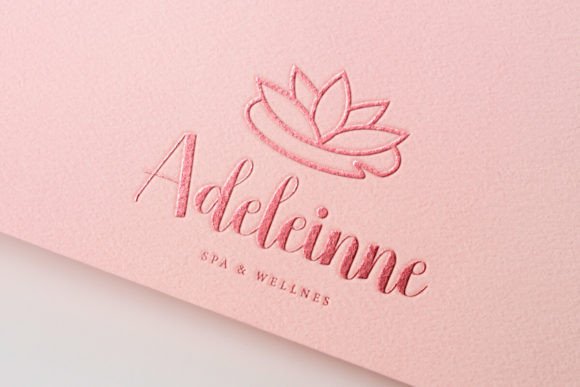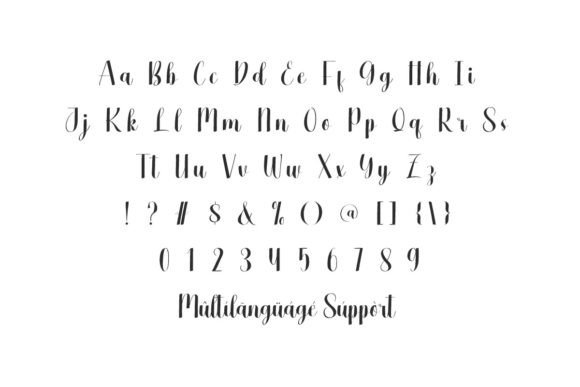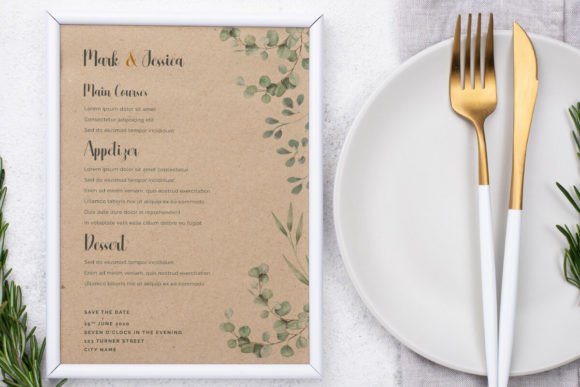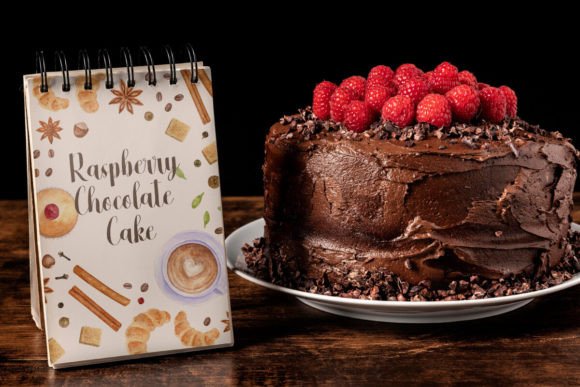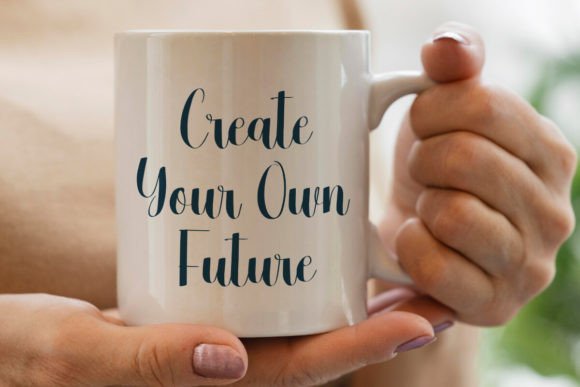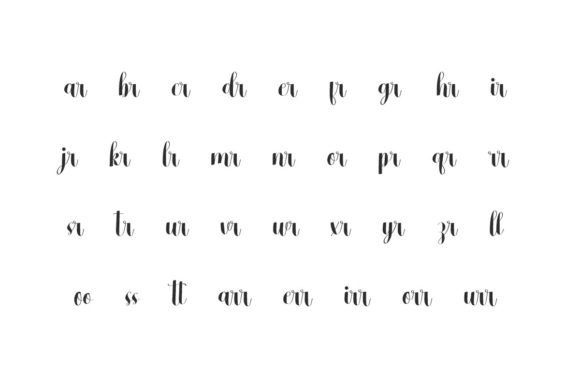
The Art of Beautiful Typography: Elevating Your Designs with Better Change Font
Have you ever found yourself staring at a blank page, trying to bring a concept to life? The blank space can be daunting, but sometimes all it takes is the right font to spark creativity. For designers, finding the perfect font can be a game-changer. That’s where Better Change Font comes in – a versatile script font that adds a touch of elegance to any design.
Better Change Font, such as Laura Script, is designed to capture the essence of traditional calligraphy. With its balanced mix of thick and thin lines, it’s both visually stunning and easy to read. Whether you’re working on an app, brochure, or website, this font is sure to elevate your design and leave a lasting impression. Its value lies in its ability to convey sophistication and creativity, making it a must-have for designers looking to take their work to the next level.
Better Change Font Key Features
Better Change Font Review
Overall, I think Better Change Font is a solid choice for designers looking for a versatile font. ✨ It’s incredibly easy to customize, with a user-friendly interface that lets you tweak every detail to your liking. The font itself is modern and sleek, making it perfect for a wide range of projects.
One of the things that really stands out about Better Change Font is its flexibility. ✨ It’s available in a range of weights and styles, from light and airy to bold and dramatic. You can also adjust the font’s spacing and alignment to suit your needs.
What Doesn’t Work
While Better Change Font is generally a great choice, there are a few limitations to be aware of. ⚠️ For one thing, the font can look a bit generic in certain contexts. It’s not as distinctive as some other fonts on the market, which may make it harder to stand out.
Additionally, Better Change Font can be a bit overkill for simple projects. ⚠️ If you’re just looking for a basic font to display some text, you may find that the customization options are more hassle than they’re worth.
Conclusion
Overall, I’d give Better Change Font 4 out of 5 stars. It’s a solid choice for designers who need a versatile font, but it may not be the best fit for every project.
- Easy to customize
- Available in a range of weights and styles
- Flexible spacing and alignment options
- Modern and sleek design
Better Change Font is useful for:
- Creating a consistent brand identity by using a specific font across all designs.
- Adding visual interest to a design by using a bold or italic font.
- Creating a dramatic effect by using a font with a high level of contrast.